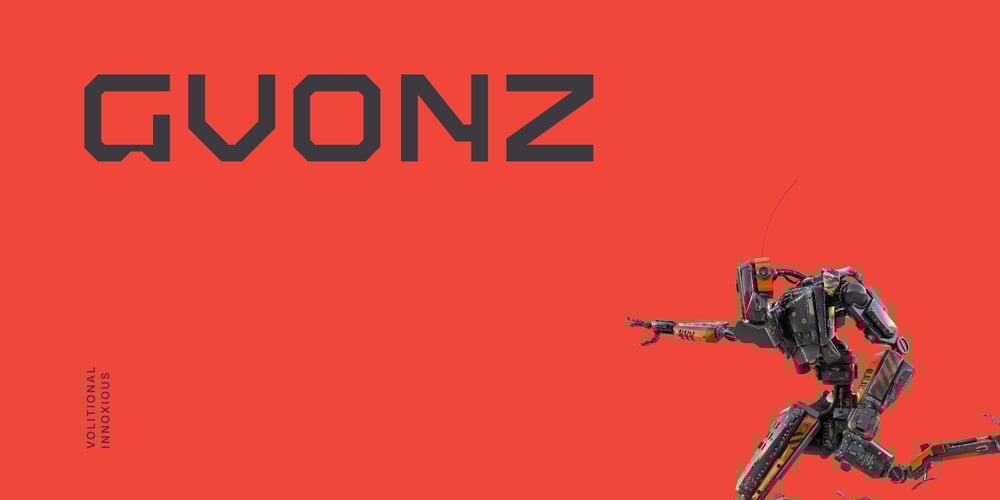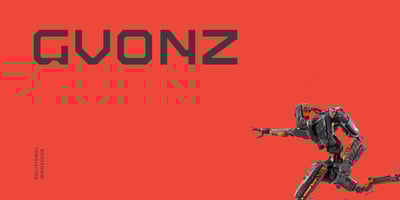
Gvonz Font Family was designed by Andrew Seah and published by Baqoos. Gvonz contains 4 styles and family package options. Gvonz is a volitional innoxious tech display typeface apt for headline, editorial, branding, packaging, printed materials and typographic applications. 150+ glyphs with ligatures and fractions.